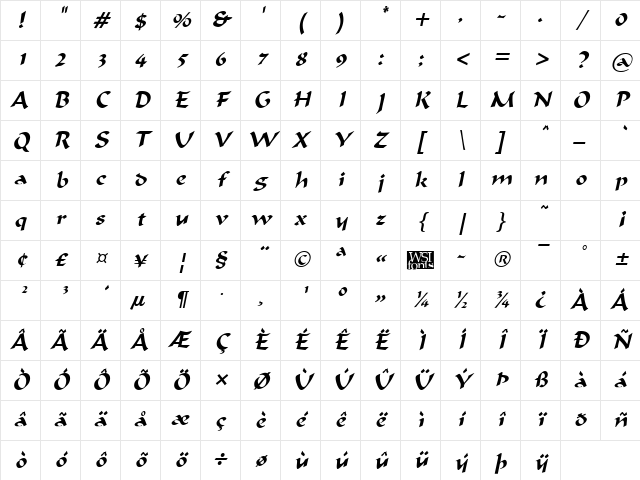
Ignacious Italic
Ignacious Family
Ignacious Italic
Design Context for Ignacious
Ignacious is a composed and adaptable typeface that performs quietly and consistently across a wide range of design contexts. The slanted form adds forward momentum and visual energy.